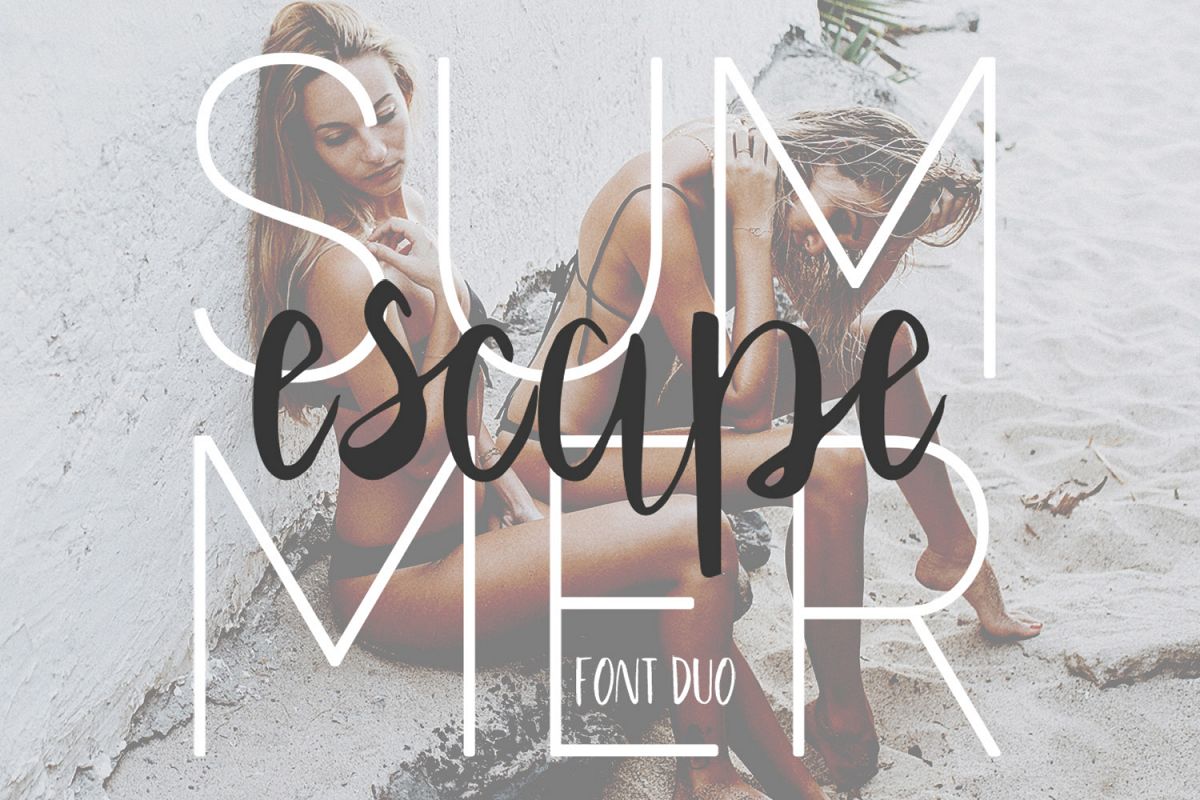
Summer Escape Font Duo
The Summer Escape font duo is a ultra versatile pairing of a modern sans serif, in three styles and a hand lettered, brush script in upper and lowercase; the perfect combination for modern, trendy, striking and designs.
The fonts can be used individually, with the Summer Escape Sans being particularly useful for clean, modern layouts, logo design and design projects. The Sans font comes in three very different styles; Light, Regular and Outline, meaning there is a vast array of possible visual options at your fingertips! Combine that with the upper and lowercase variants in the Summer Escape Script and you have a potent combination to work with!Ideal for everything from fashion blogs, wedding stationery and invites to web design, branding and even social media marketing and campaigns.
• Summer Escape Light A clean, modern sans serif perfect for contemporary print and screen based design layouts or branding projects
• Summer Escape Regular A slightly bolder weight, ideal for headers, sub-headers and adding hierarchy to your typography
• Summer Escape Outline The outlined version of the regular weight. Combine with the light or regular weight and nudge out of position to create striking visual impact.
• Summer Escape Script A playful, somewhat feminine hand brushed script. The perfect compliment to the cleanliness of the sans font, or use it on it's own for that hand crafted feel; ideal for wedding stationery, greetings cards and so much more.